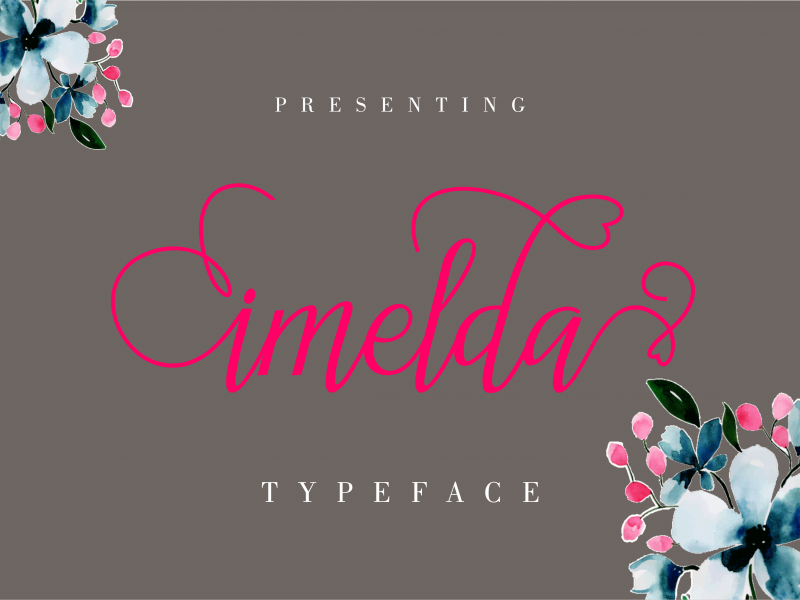
Imelda Script Font
imelda is a modern hand-based typography, This font is made up of irregularly flowing letters, both between top-down and with subsequent letters, which makes it suitable for Logotype, posters, businness cards, merchandise, wedding invitations, greeting cards, banners blogs, clothing, water-based paint designs / prints, correspondence, quotes and more!